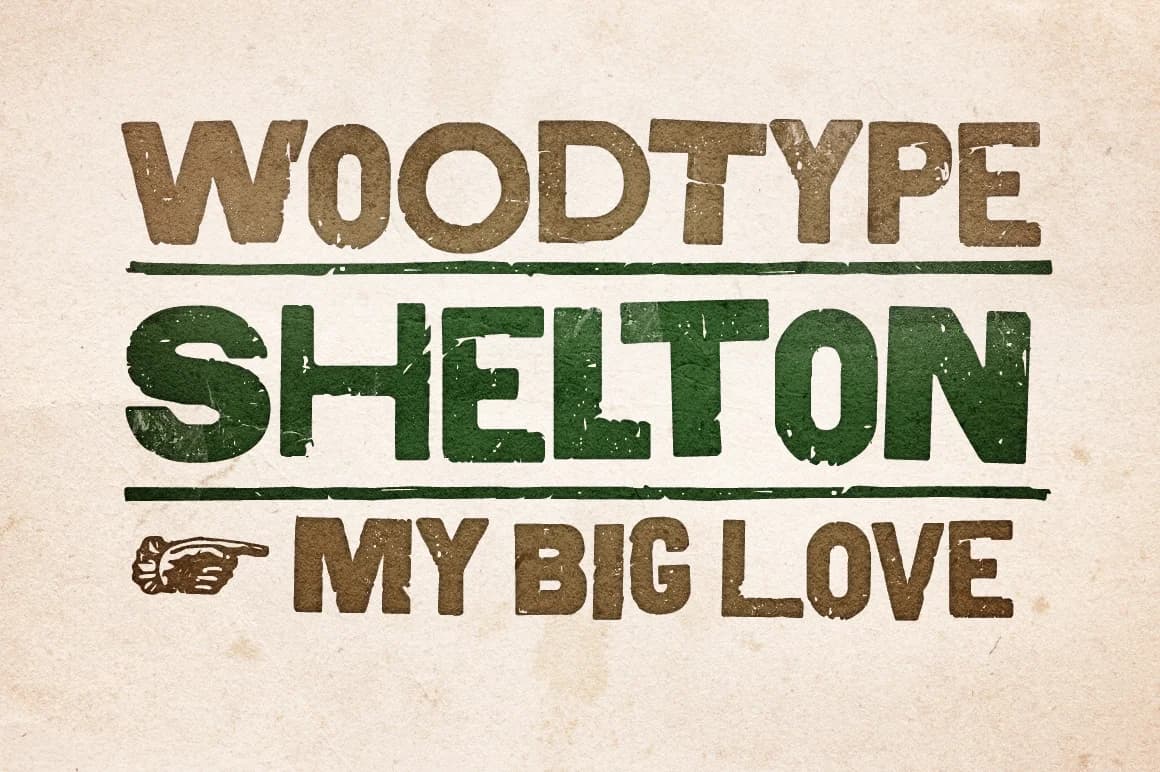
Shelton
A sans-serif typeface from HvD Fonts, though full details could not be retrieved due to access restrictions.
HvD Fonts is known for geometric and humanist sans-serif designs; without page content, Shelton is tentatively classified as geometric sans based on foundry tendencies and naming conventions.